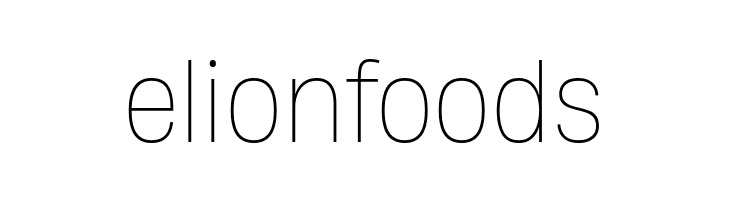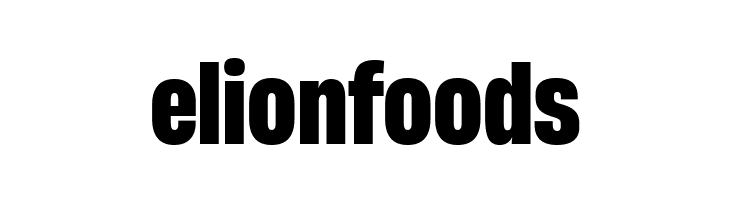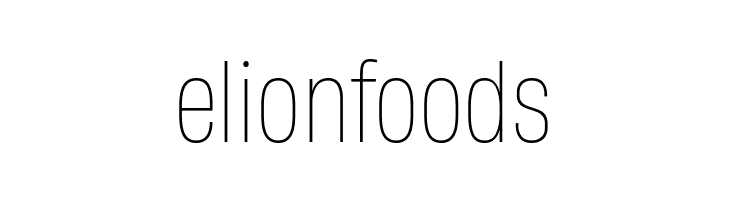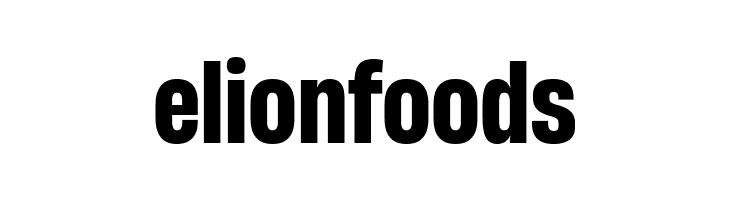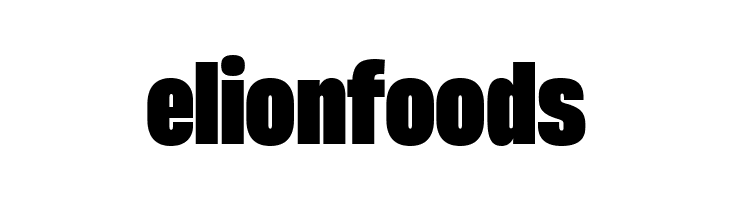
A modern, thin font with elongated letterforms and uniform spacing.
A modern, light sans-serif font with tall, narrow characters.
A modern, clean sans-serif font with a slightly condensed style.
A modern sans-serif font with tall, narrow letterforms and high legibility.
A bold, modern sans-serif font with clean lines and high contrast.
A bold, sans-serif font with a strong, modern presence.
A bold, modern font with thick, uniform strokes and tight spacing.
A bold, heavy font ideal for impactful headlines and titles.
A thin, modern font with clean lines and geometric influence.
A clean, modern sans-serif font with uniform stroke width and geometric influence.